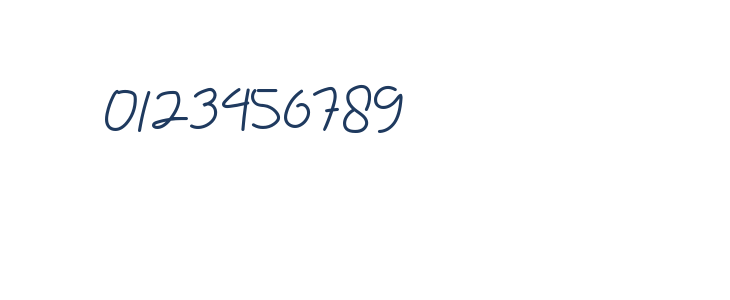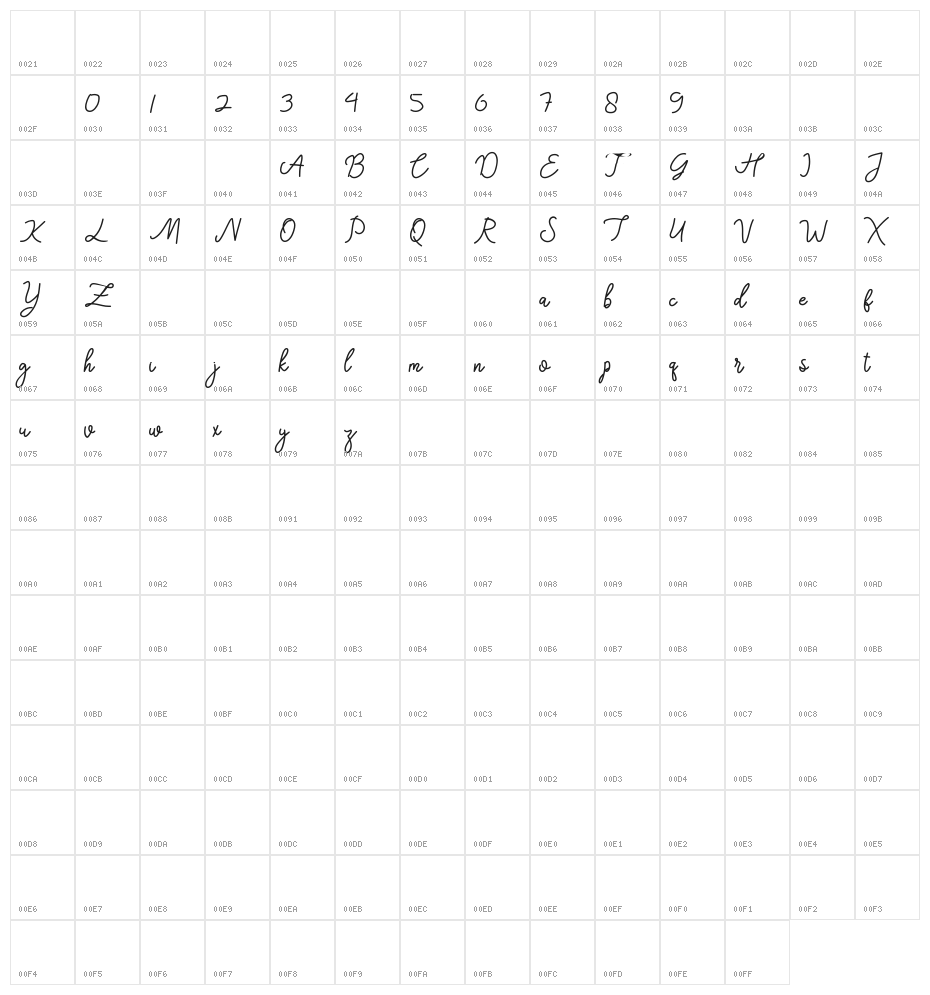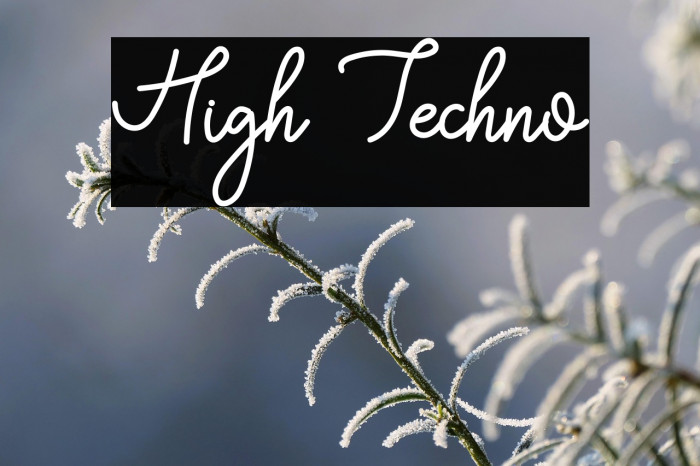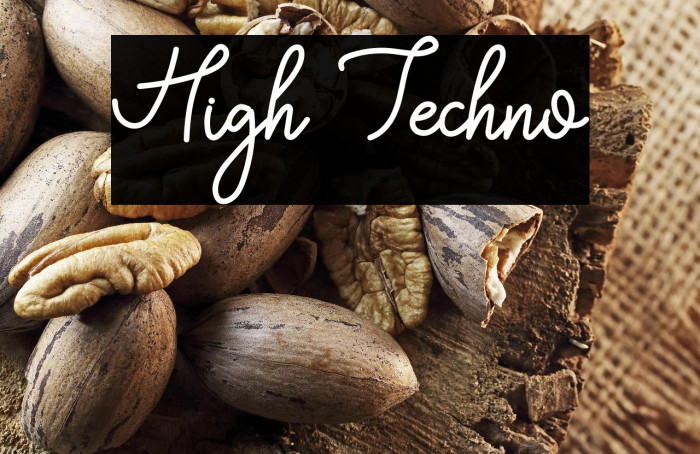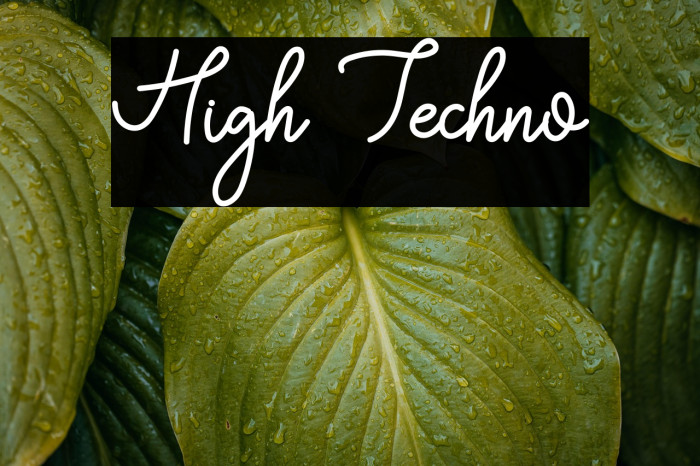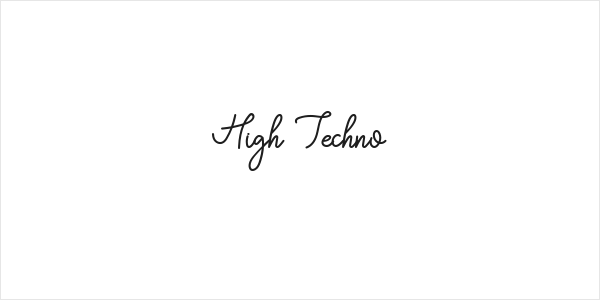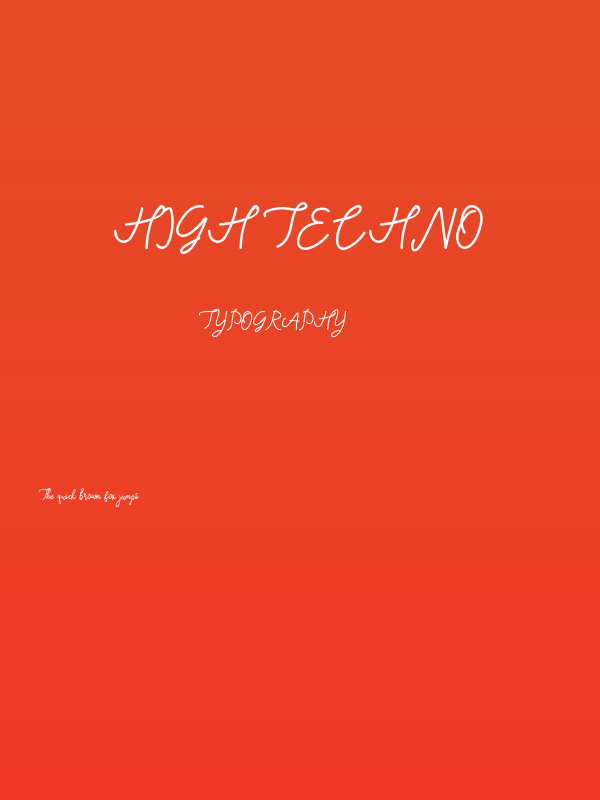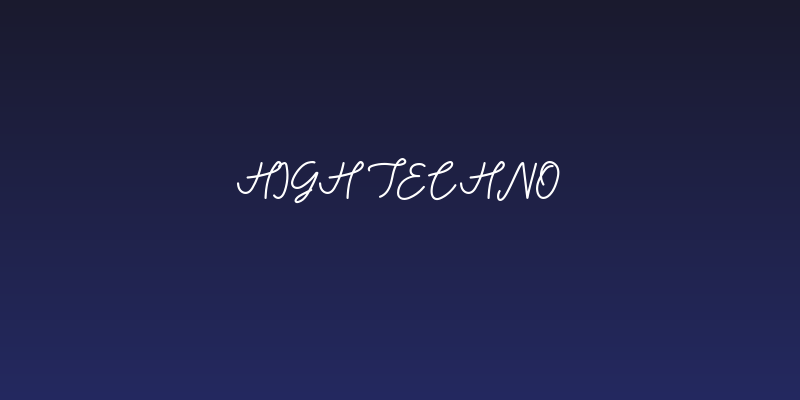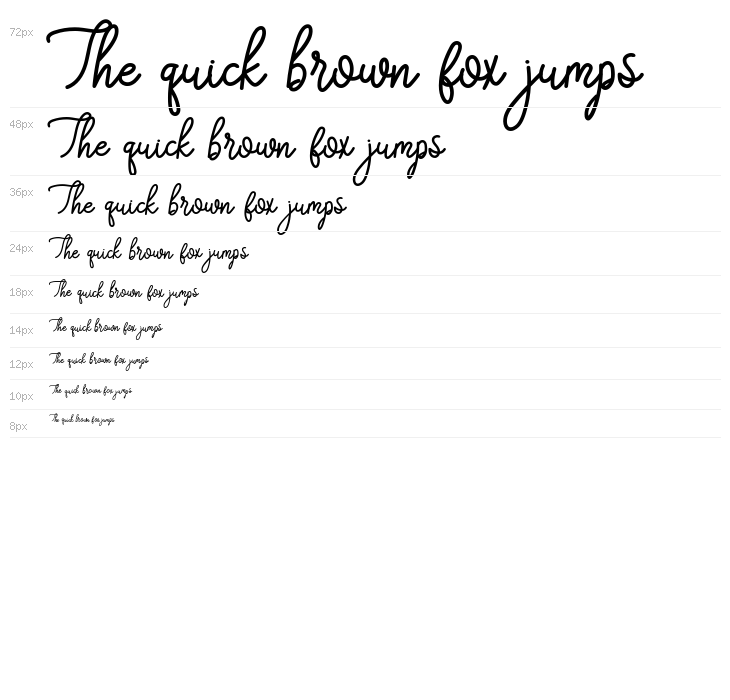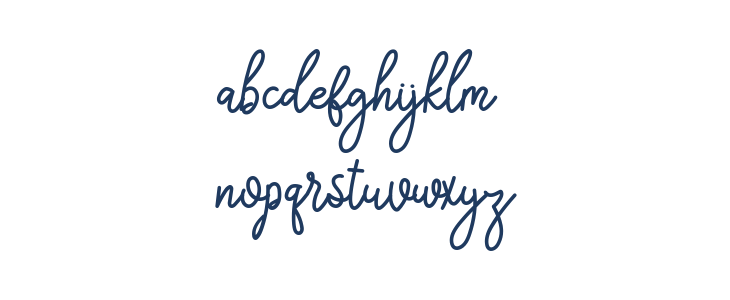
High Techno Font
High Techno Description
This font features a flowing, cursive style that mimics elegant handwriting. The uppercase letters are slightly more structured, maintaining a consistent height and width, while the lowercase letters exhibit a more fluid and dynamic form. The numbers are clear and legible, matching the overall aesthetic of the font. The special characters are seamlessly integrated, maintaining the same graceful curves and lines. This font is ideal for projects that require a personal touch, such as invitations, greeting cards, or branding materials that aim to convey sophistication and elegance.
| Overall Style | Elegant, Handwritten |
| Use Case | Invitations, Personal branding, Greeting cards |
| Proposed Projects | Ideal for wedding invitations, personal branding, greeting cards, and elegant logos. |